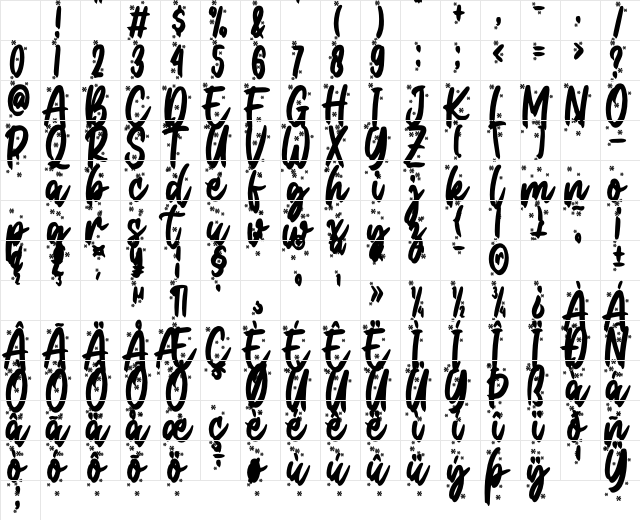
Complete Christmas Present Snow Regular glyph index. Displaying only characters natively supported by Christmas Present Snow Regular font.
Christmas Present Snow is a composed and adaptable typeface that performs quietly and consistently across a wide range of design contexts.